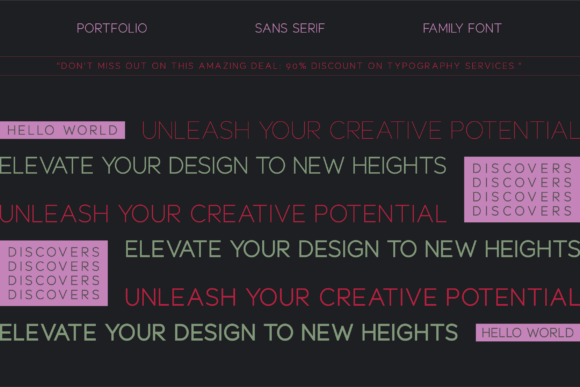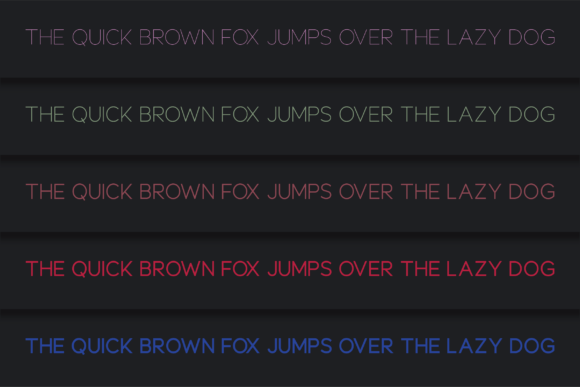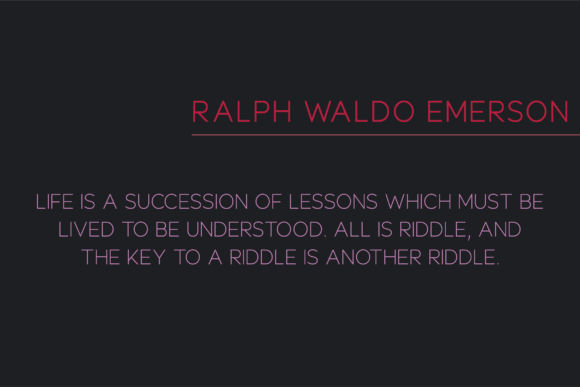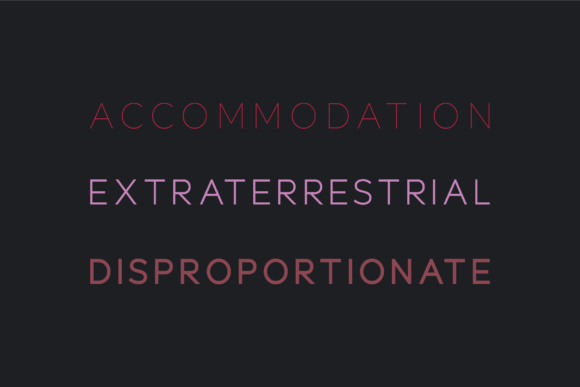
Introducing Discovers Font Family — A Masterpiece of Elegance and Modern
In the realm of typography, a well-crafted font can elevate a design from ordinary to extraordinary. Meet Discovers Font, a meticulously crafted sans-serif font family that redefines modern design. With its sleek lines, precise curves, and versatile weights, Discovers Font is poised to become the go-to choice for designers seeking a sophisticated and contemporary aesthetic.
Unparalleled Versatility
One of the standout features of Discovers Font is its impressive range of 5 distinct weights, carefully designed to cater to a wide array of design needs. Whether you’re working on a stylish magazine layout, a striking logo, or a captivating film poster, Discovers Font seamlessly adapts to bring your vision to life. This versatility ensures that your designs exude a consistent level of sophistication and elegance, regardless of the project scope or medium.
Precision and Attention to Detail
Discovers Font was designed with precision and an eye for detail, reflecting a deep understanding of typographic principles and design aesthetics. Each letterform has been meticulously crafted to strike the perfect balance between sophistication and simplicity. The result is a font that not only looks stunning on its own but also enhances the overall visual appeal of any design it becomes a part of.
Timeless Charm and Contemporary Luxury
What sets Discovers Font apart is its unique ability to convey both timeless charm and contemporary luxury. Its clean lines and modern sans-serif design ensure that your creations look fresh and current, while its elegant proportions and balanced spacing evoke a sense of classic sophistication. This blend of old and new makes Discovers Font an ideal choice for designers aiming to create works that stand the test of time.
Transform Your Designs
With Discovers Font, the possibilities for creative expression are endless. Imagine being able to consistently deliver high-quality, visually stunning designs that capture the essence of your brand or project. Whether you’re a seasoned designer or a crafting enthusiast, Discovers Font provides the tools you need to elevate your work and unlock a new level of creativity.
Applications of Discovers Font
The applications of Discovers Font are as diverse as its design. Here are a few examples of how this versatile font family can be used:
• Magazines and Editorials: Use Discovers Font to give your magazine or editorial a sleek and modern look that draws readers in.
• Logos and Branding: Create a lasting impression with a logo that exudes elegance and sophistication, perfect for luxury brands and startups alike.
• Film Posters and Advertising: Make your film posters or advertising materials stand out with a font that commands attention and conveys a sense of glamour.
• Web Design: Enhance your website’s typography with Discovers Font, ensuring a consistent and luxurious user experience across all devices.
Discovers Font is more than just a font family — it’s a design solution that bridges the gap between modern elegance and timeless sophistication. Its versatility, precision, and aesthetic appeal make it an invaluable asset for designers and crafters looking to elevate their work. By choosing Discovers Font, you’re not just selecting a typeface; you’re embracing a design philosophy that values clarity, luxury, and creativity. Transform your designs today with Discovers Font and discover a new world of typographic possibilities.